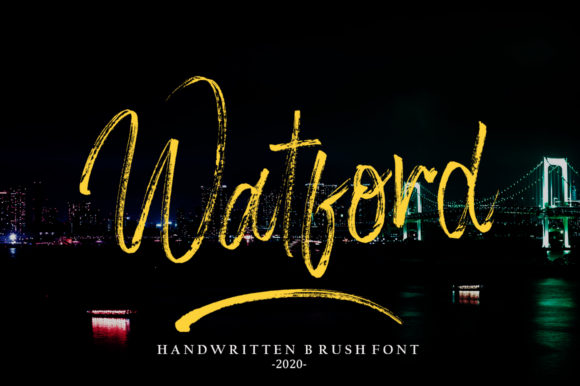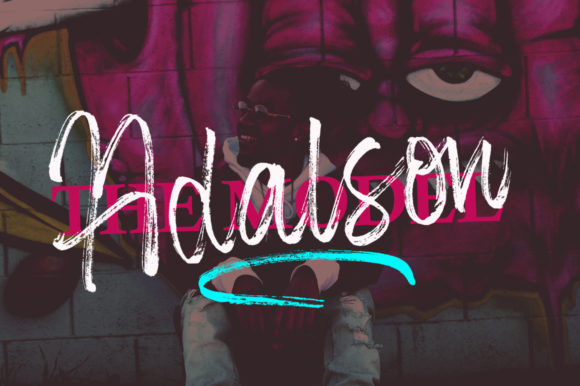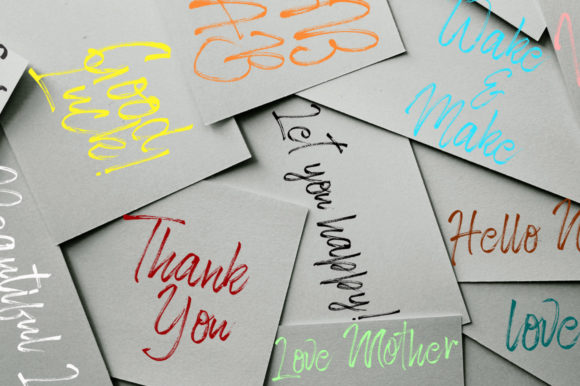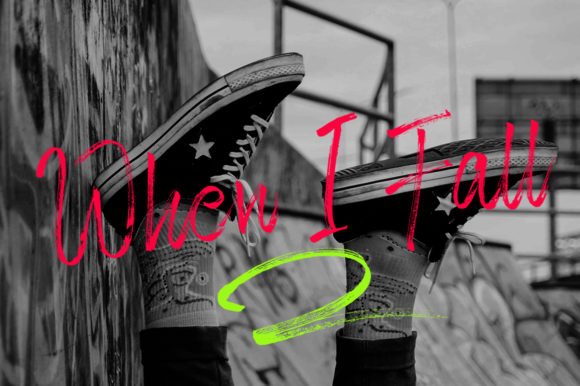
Watford Brush Font
About Watford Brush Font
Watford Brush is a wild and authentic script that radiates style. Ignite your creativity with its unique approach to design.